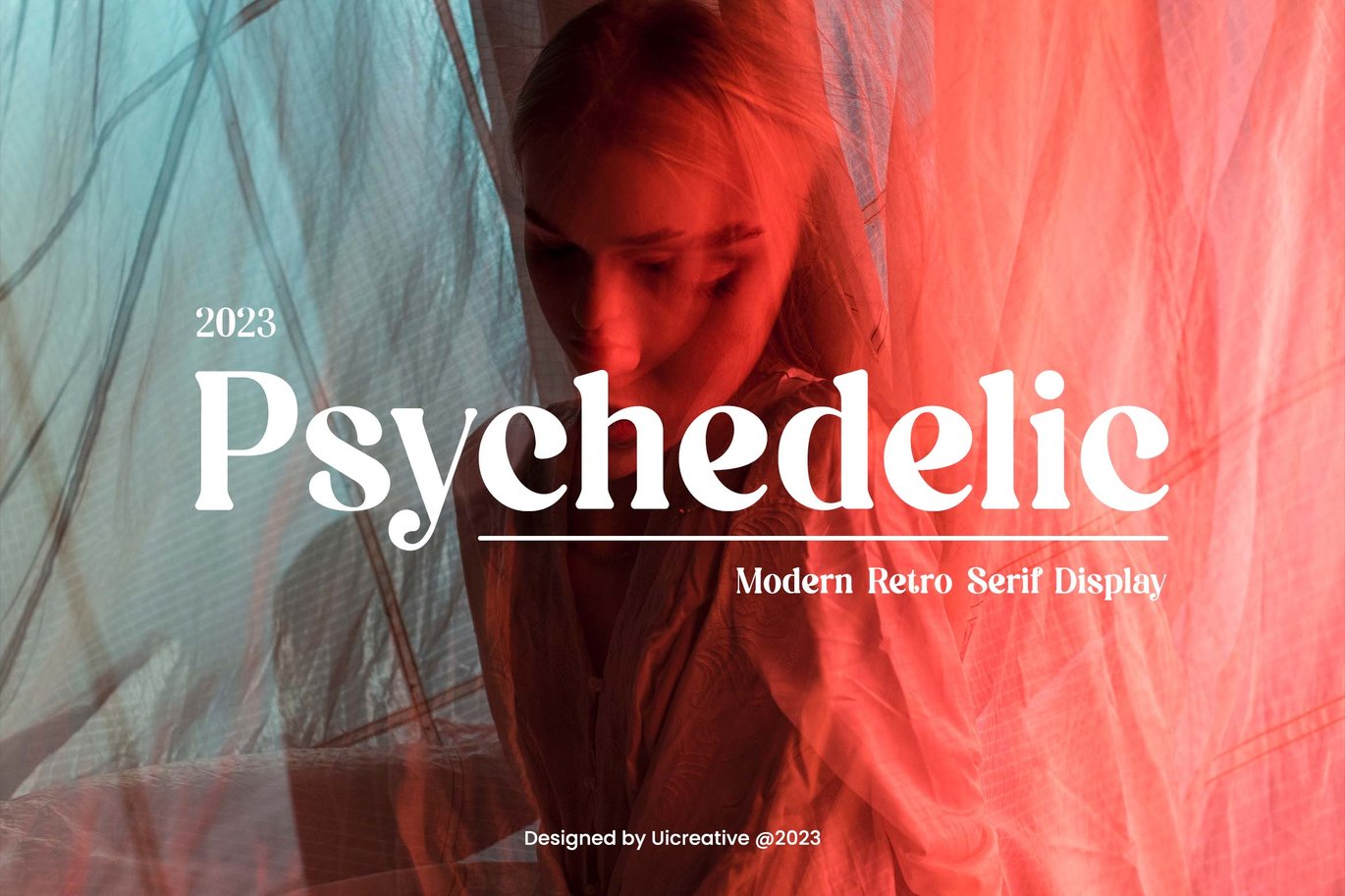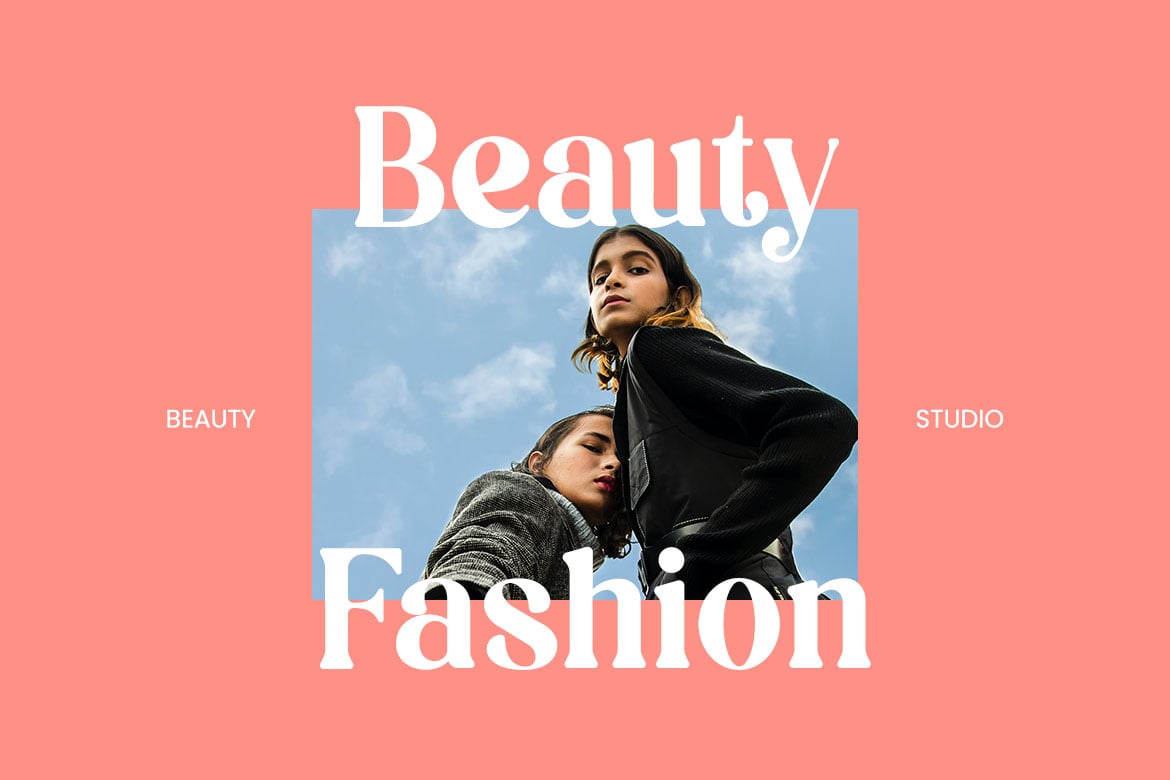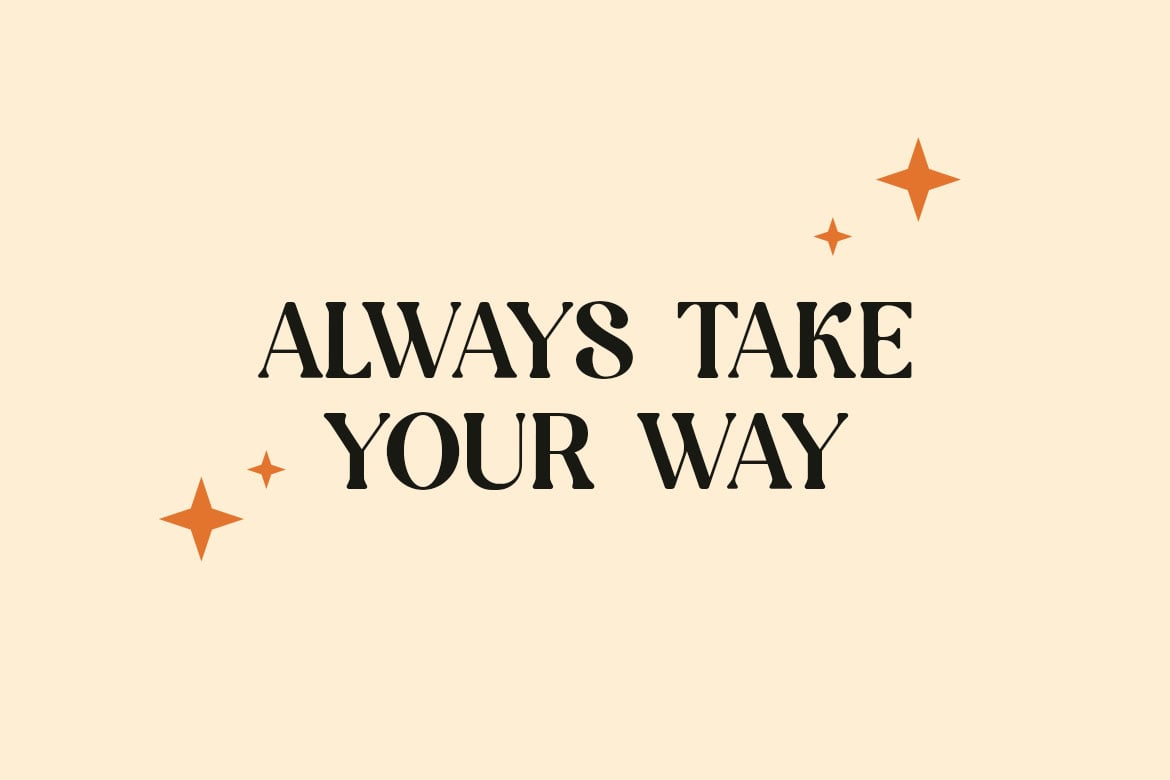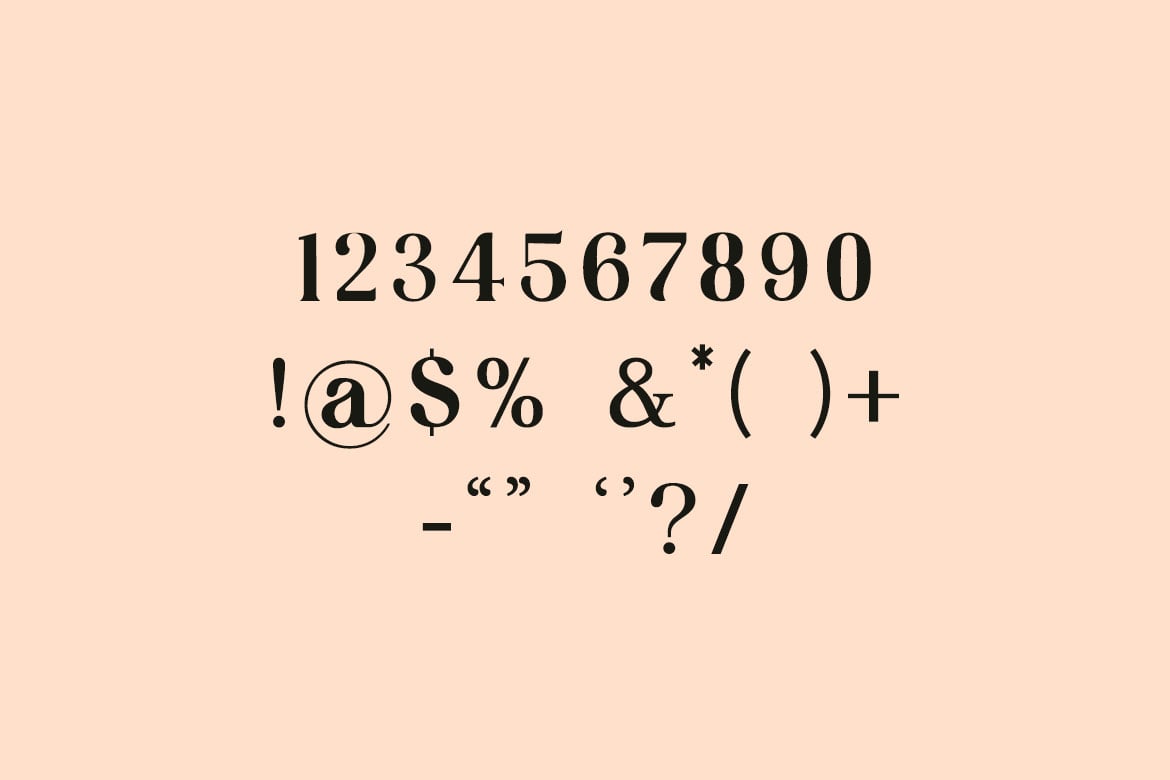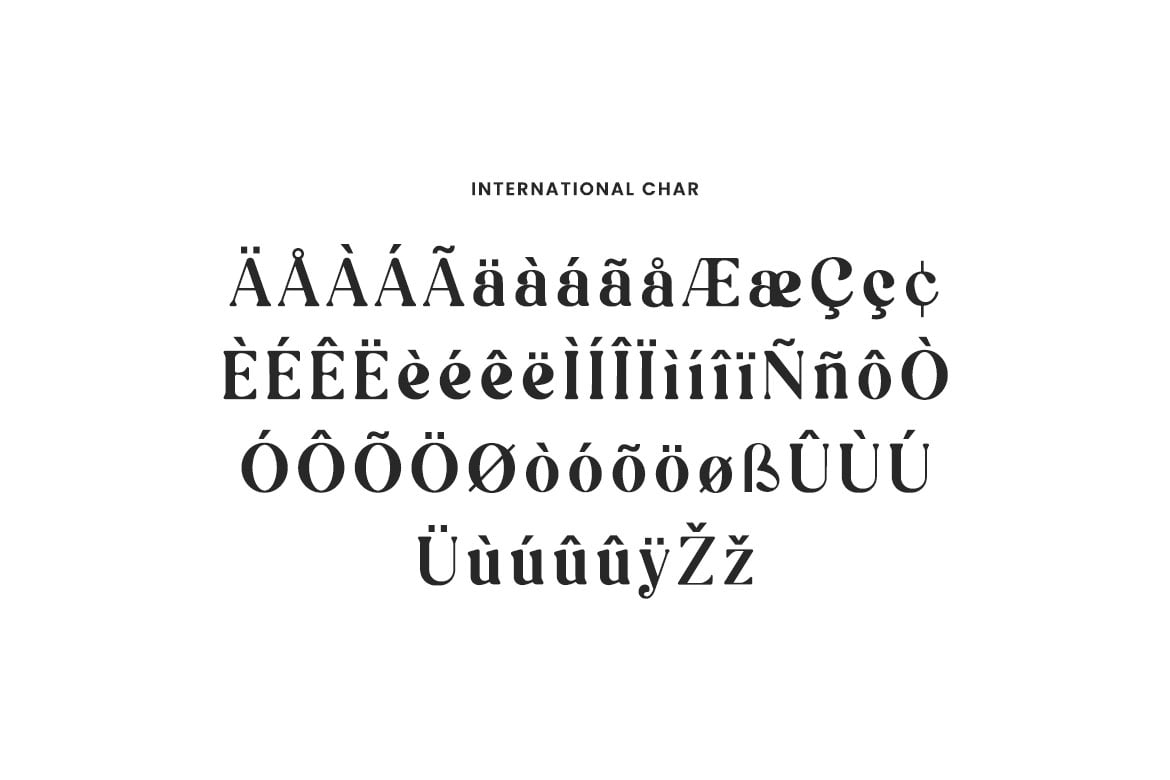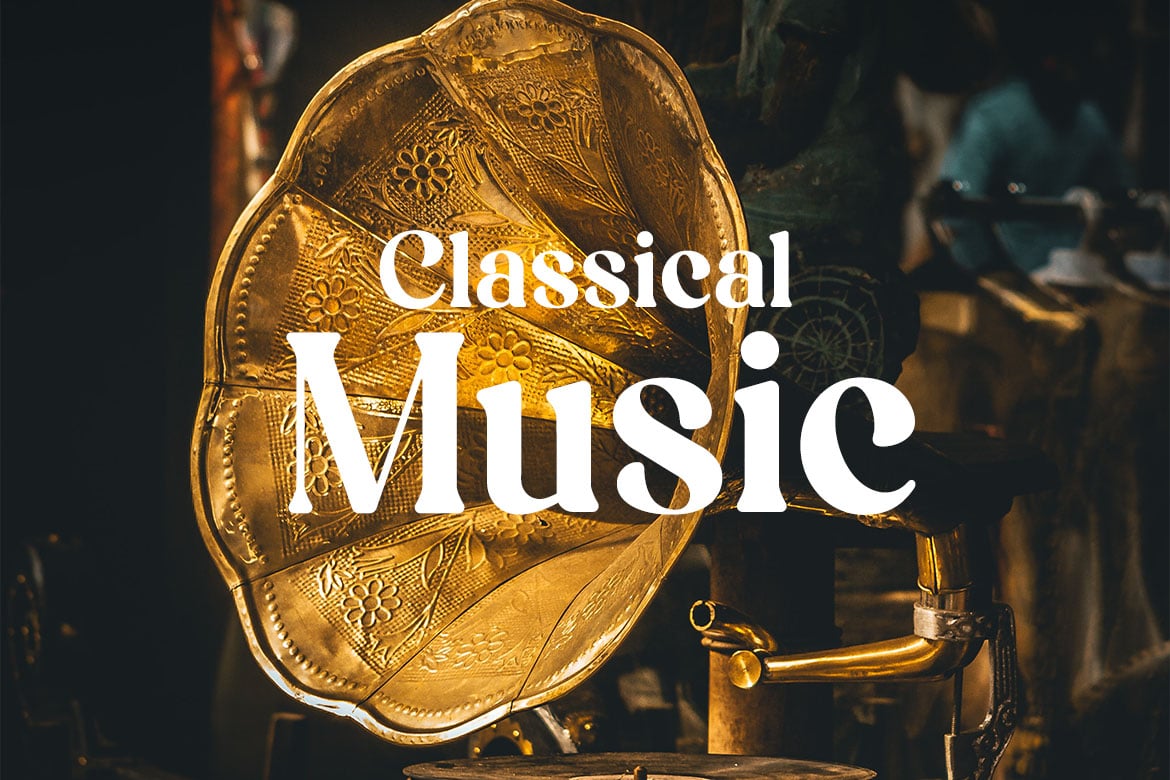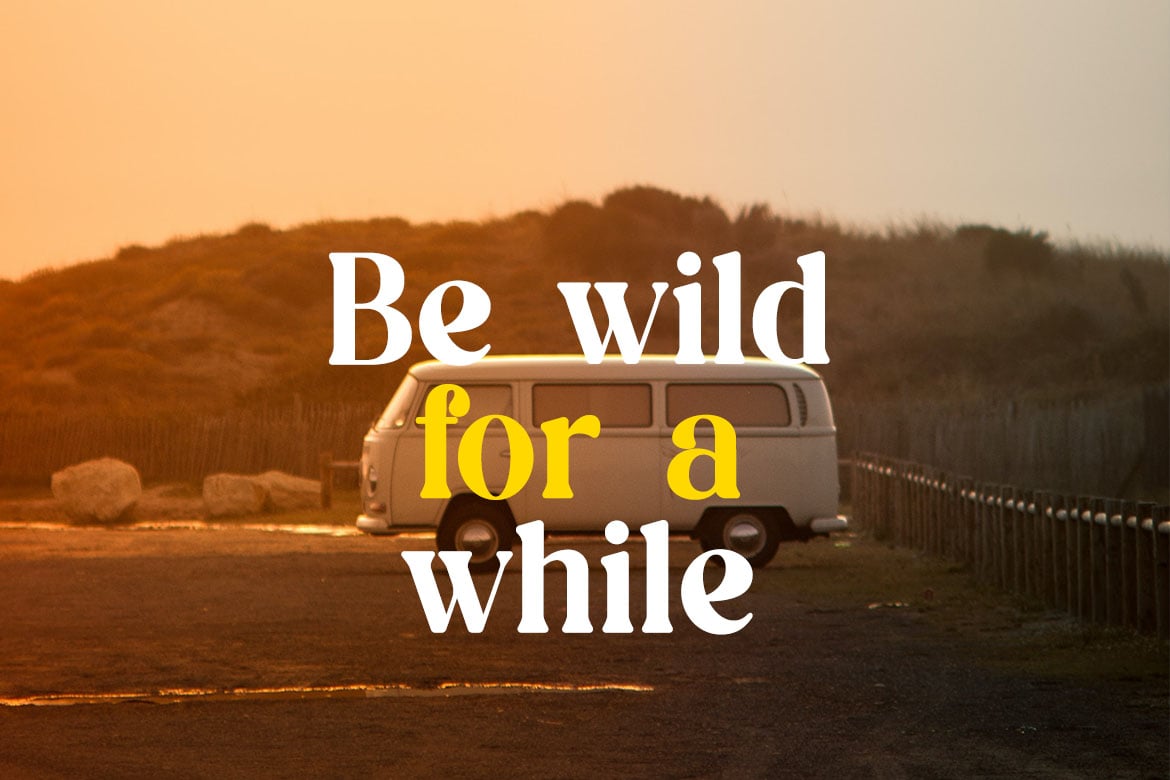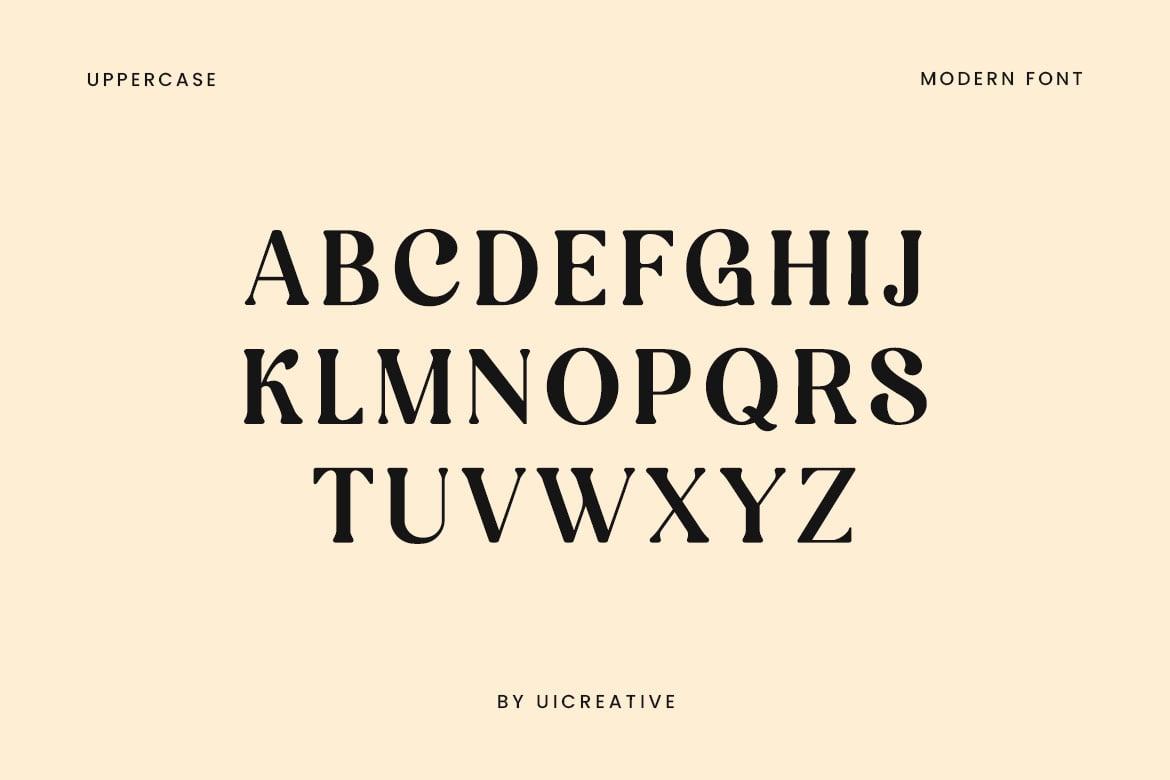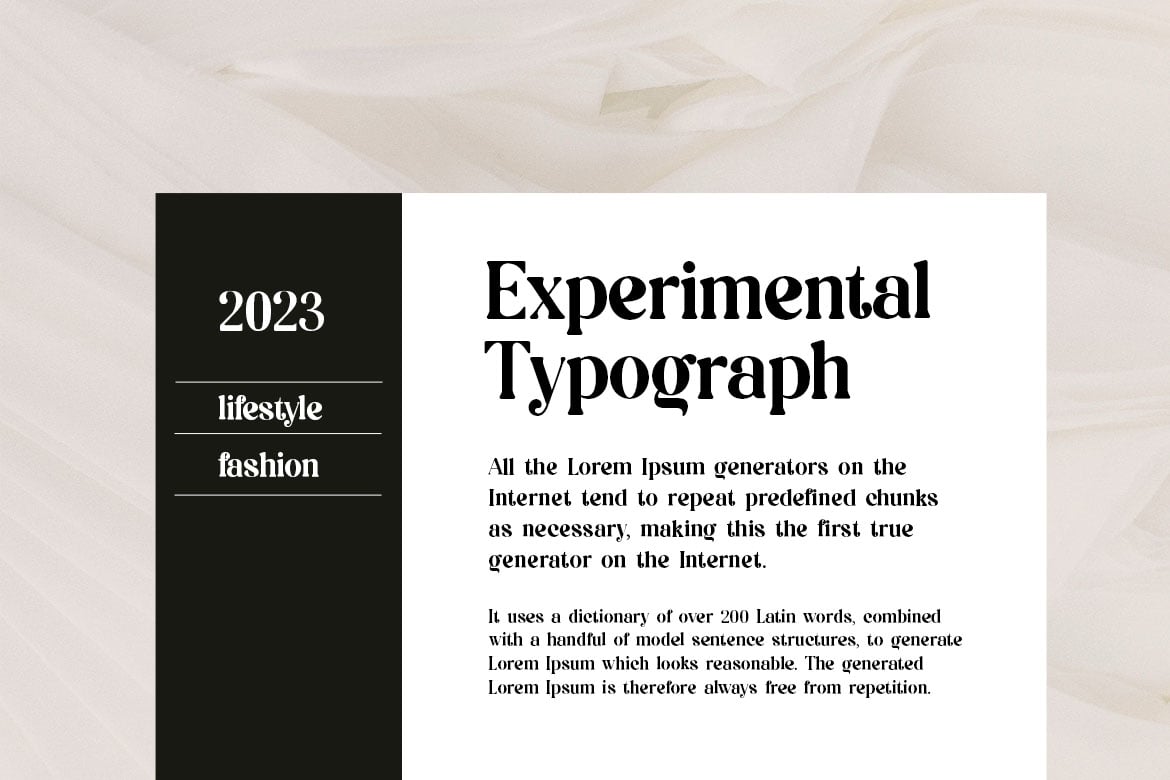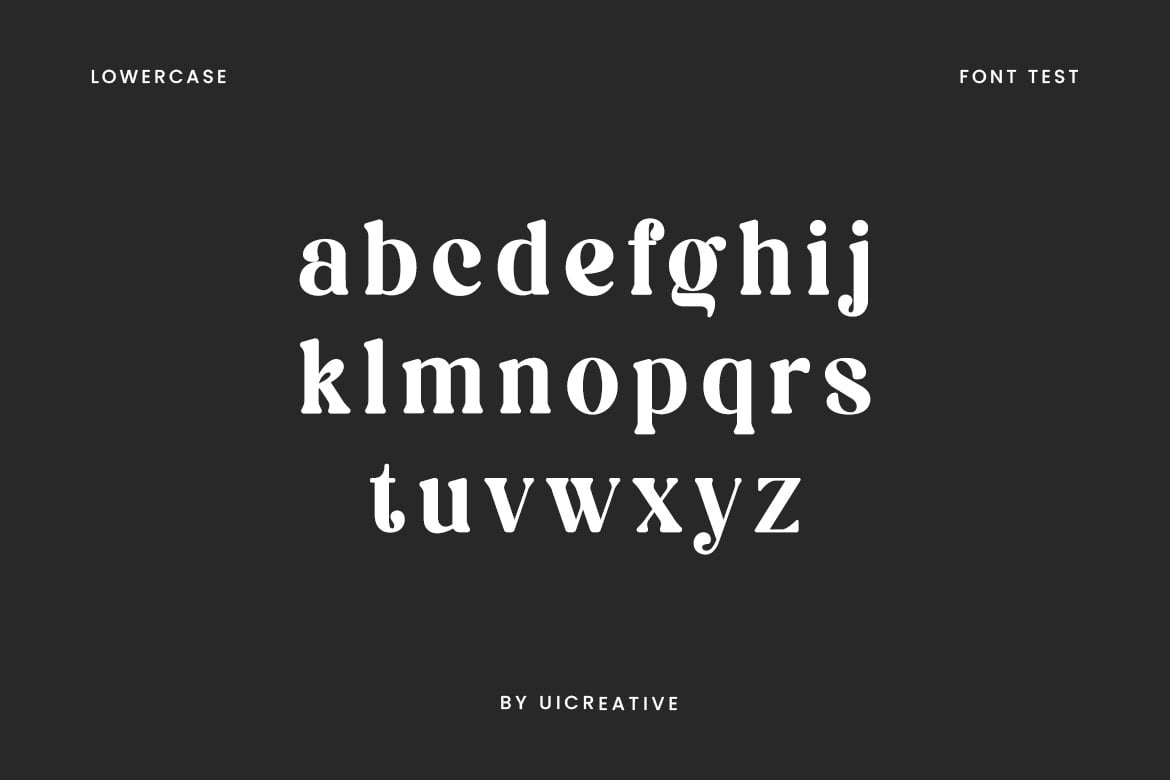
Psychedelic Modern Retro Serif Font
Introducing our new product the name is Psychedelic Modern Retro Serif Font. Psychedelic Modern Retro Serif Font that feels beautiful classy, elegant, and modern. This font is perfectly suited for a wide variety of projects, such as signature, stationery, logo, wedding, typography quotes, magazine or book covers, website headers, clothing, branding, packaging design, and more. Also, fashion-related branding or editorial design displays both masculine and feminine qualities.